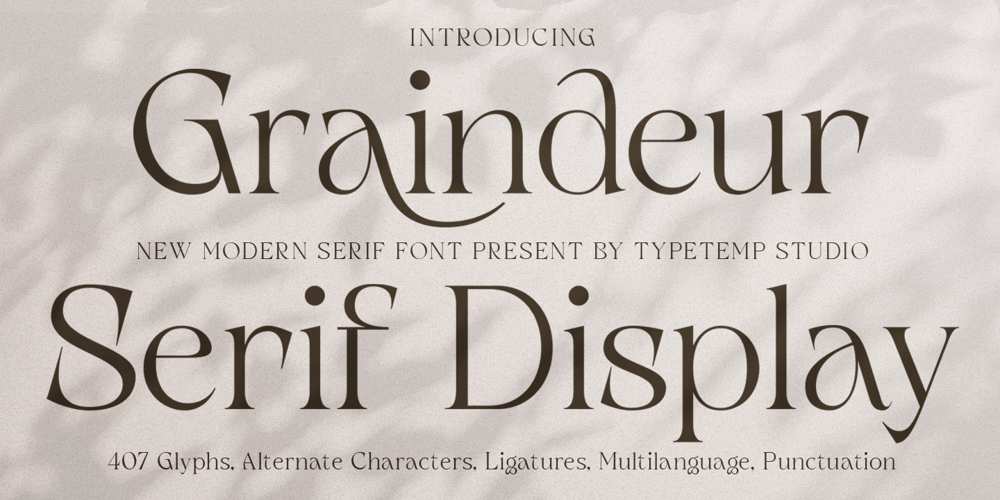
Graindeur
Graindeur font
Graindeur Font Family was designed by Haris Purnama Putra, Egi Ahmad Mufid and published by Typetemp Studio. Graindeur contains 1 styles and family package options. Graindeur – Modern Serif Display Font is a stylish font It modern and stylist look. Comes with alternatives and ligatures, helps to create stunning logos, quotes, posts, blog posts. branding projects, magazine imagery, wedding invitations, and much more.WHAT’S YOU GET ? Unique Letterforms Works on PC & Mac Simple Installations Accessible in the Adobe Illustrator, Adobe Photoshop, Microsoft Word Fully accessible without additional design software. I really hope you’ll get pleasure using Allenoire font and it will be perfect addition to your font collection! Contact me with an inbox message If you have any question. Thank you! Happy Creating.